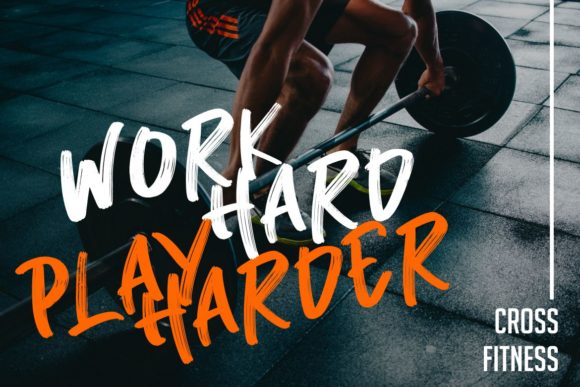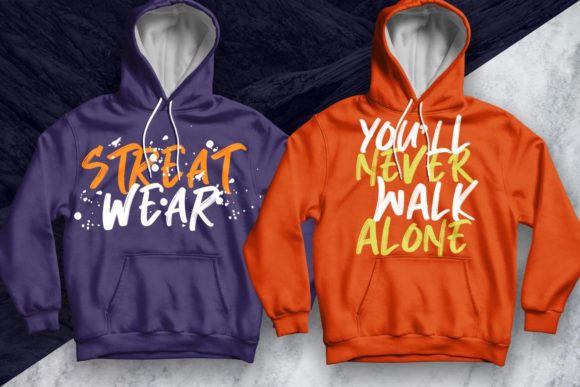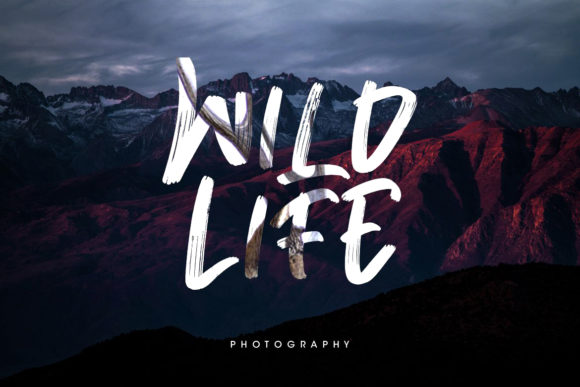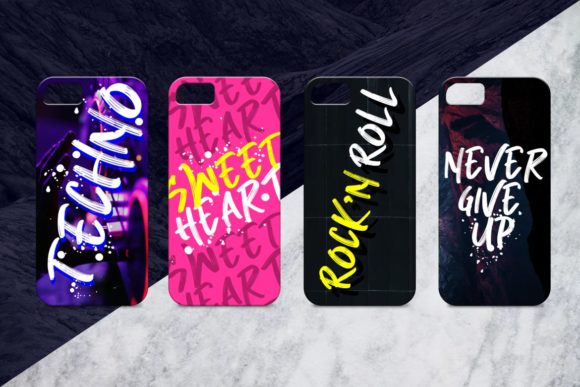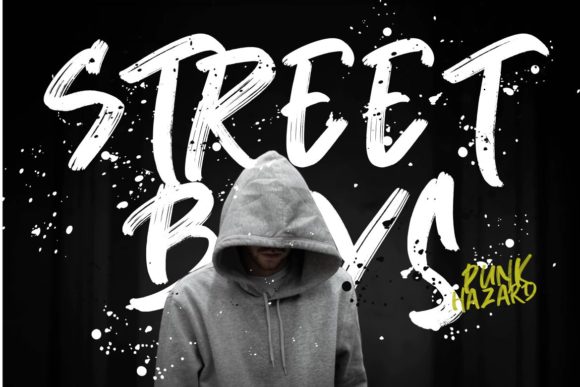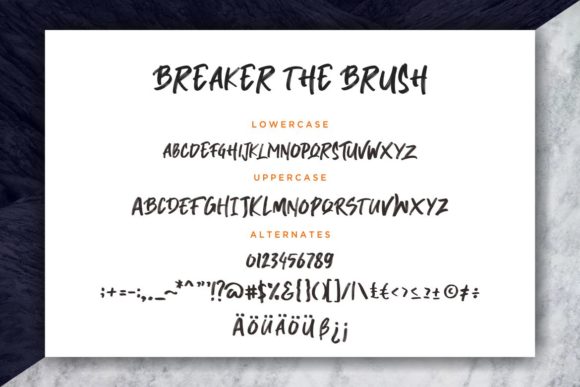
Where Creativity Meets Style: Introducing Breaker the Brush Font
Remember that moment when you’re brainstorming ideas and suddenly, a spark of inspiration hits you? You feel invigorated, and your creative juices start flowing. For designers, this feeling is all too familiar, and it’s exactly what we need to bring our ideas to life. Whether you’re working on a new project or trying to convey a message, the right font can make all the difference.
Enter Breaker the Brush Font, an equally cool and strong handwritten brush font with a contemporary vibe. This versatile font is designed to add a personal touch to your designs, making it perfect for everything from social media graphics to branding and advertising materials. With Breaker the Brush Font, you’ll be able to express your creativity and style in a way that truly sets you apart.
Breaker the Brush Font Key Features
- Font Family: Breaker the Brush Font
- Character Count: 800+ glyphs (including Latin, Cyrillic, and Greek alphabets)
- Unique Characteristics: Hand-painted, brush-style font with a unique, organic feel; perfect for creative, artistic, or vintage designs
Breaker the Brush Font Review
Breaker the Brush Font is an exciting new addition to the world of typography. I have to say, I’m really impressed with how well it captures the essence of hand-drawn lettering ✨. The font’s unique, expressive style is perfect for designers looking to add a touch of personality to their projects. Whether you’re working on a creative agency project or a personal branding project, Breaker the Brush Font is sure to make a statement.
One of the things that really stands out about Breaker the Brush Font is its versatility. It’s a great choice for headings and titles, but it’s also suitable for body text ✨. The font’s friendly, approachable feel makes it perfect for use in social media, advertising, and other applications where a warm, inviting tone is desired.
- ⚠️ Breaker the Brush Font can be a bit too casual for formal or professional applications. If you’re working on a project that requires a more serious tone, you may want to consider a different font.
- ⚠️ The font’s unique style can be a bit overwhelming in large blocks of text. To get the most out of Breaker the Brush Font, try using it sparingly and pairing it with a more traditional font for body text.
Overall, I’m really impressed with Breaker the Brush Font. It’s a unique, expressive font that’s perfect for designers looking to add a touch of personality to their projects. While it may not be the best choice for every application, it’s definitely worth considering for your next design project.
Breaker the Brush Font works well for creating attention-grabbing headlines and titles.
Breaker the Brush Font is ideal for creating unique and eye-catching typography in Adobe Creative Cloud applications.
Breaker the Brush Font adds a touch of elegance and sophistication to your presentations and documents.
Breaker the Brush Font is perfect for:
- Creating attention-grabbing headlines and titles.
- Adding a touch of elegance and sophistication to presentations and documents.
- Designing unique and eye-catching typography.